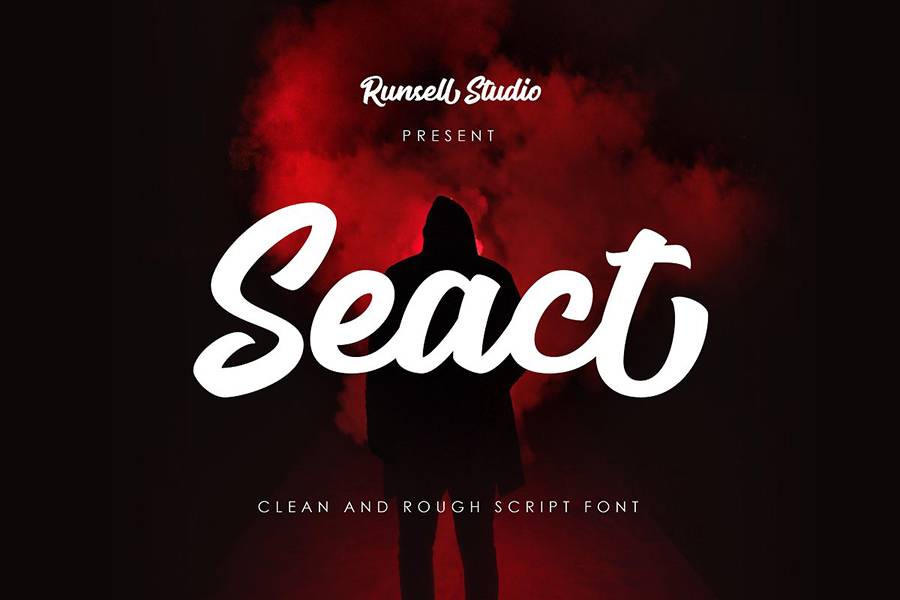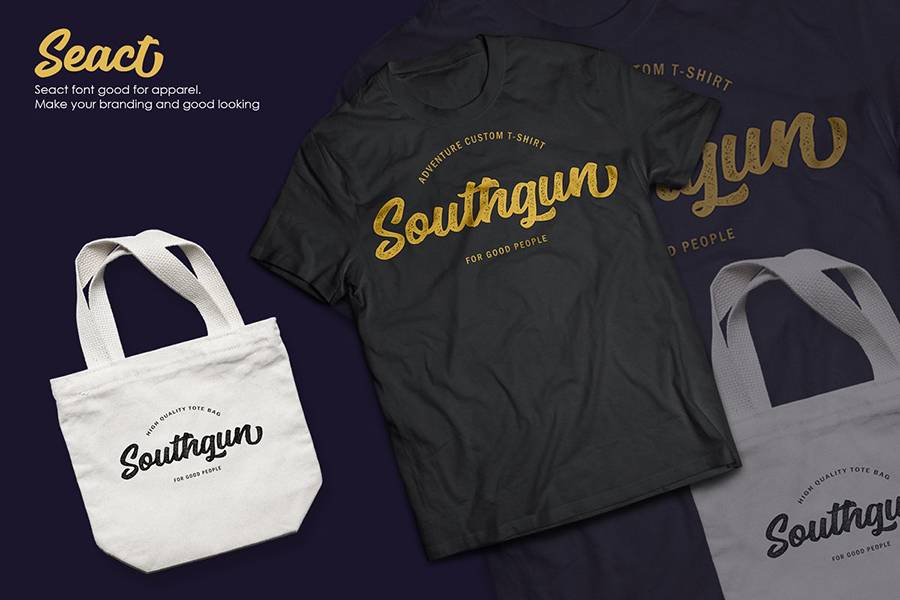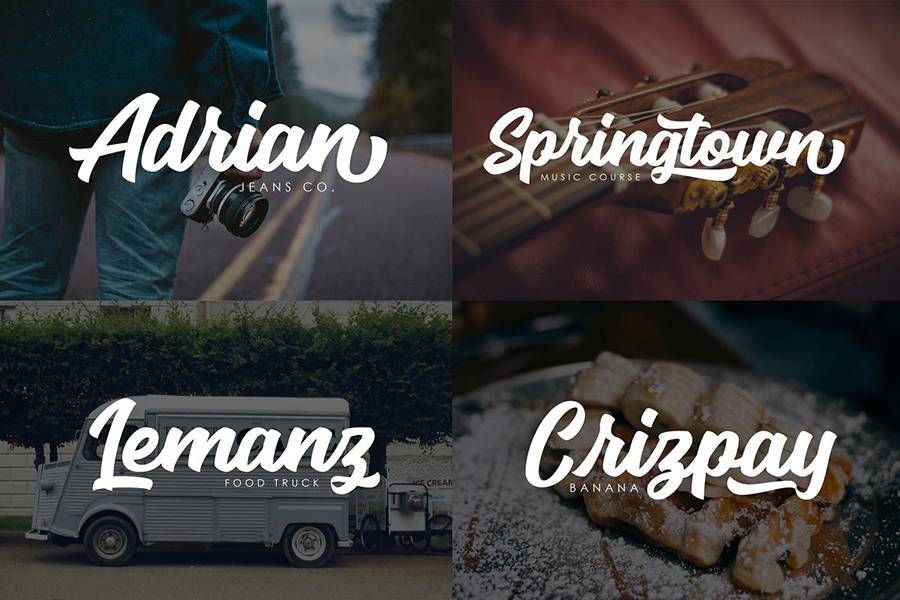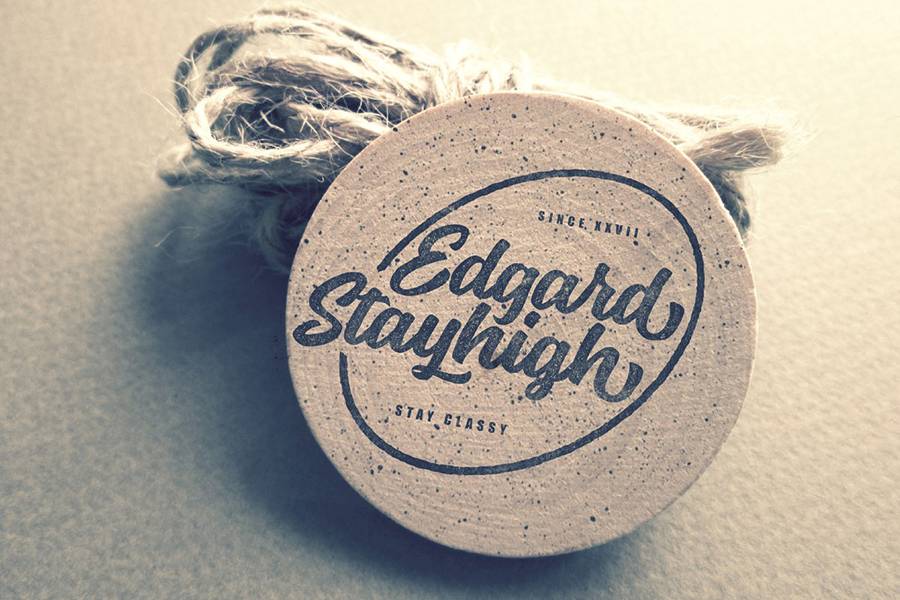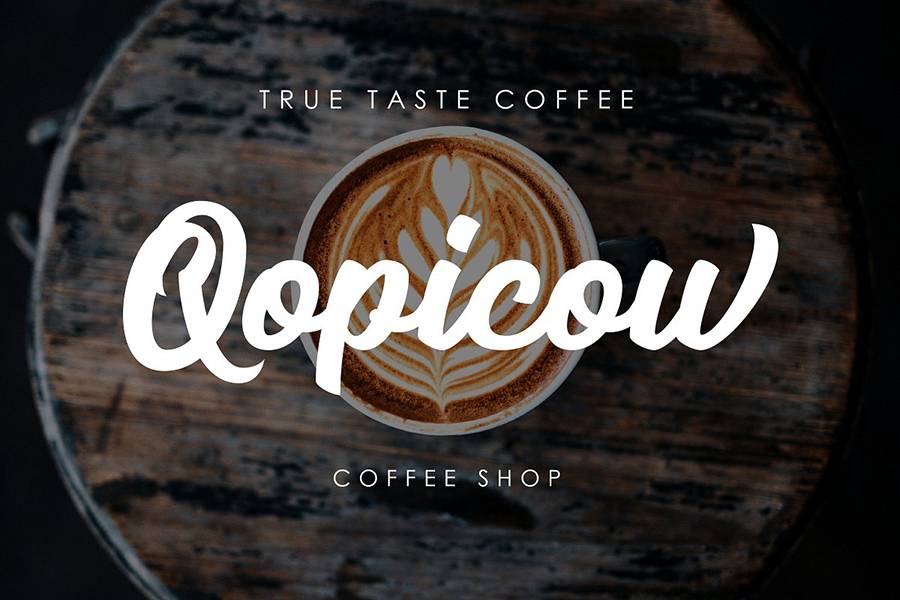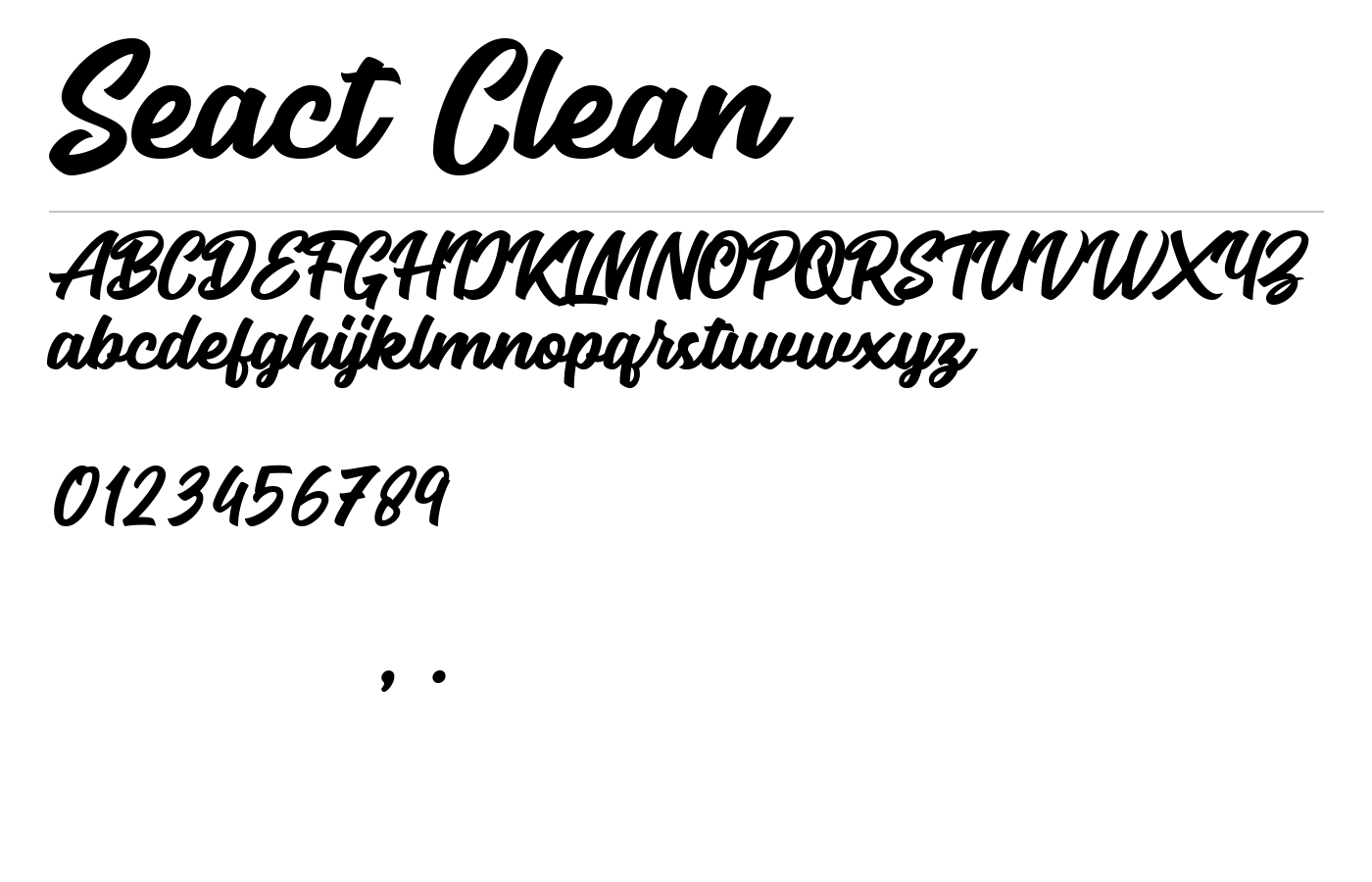
Seact Handlettering Script is a bold, flowing script font that combines a modern handwritten feel with clean, smooth strokes. Its rounded letterforms and consistent weight give it a friendly yet confident personality, making it ideal for branding, logos, and headlines that want to convey warmth and approachability while maintaining a stylish edge. This font works especially well in creative and casual settings where a personal, handcrafted touch is desired.
Seact Handlettering Script
About Seact Handlettering Script
| Font family | Seact Handlettering Script |
| Release date | 2017-07-06 |
| Designer | Satia Hayu Prabowo |